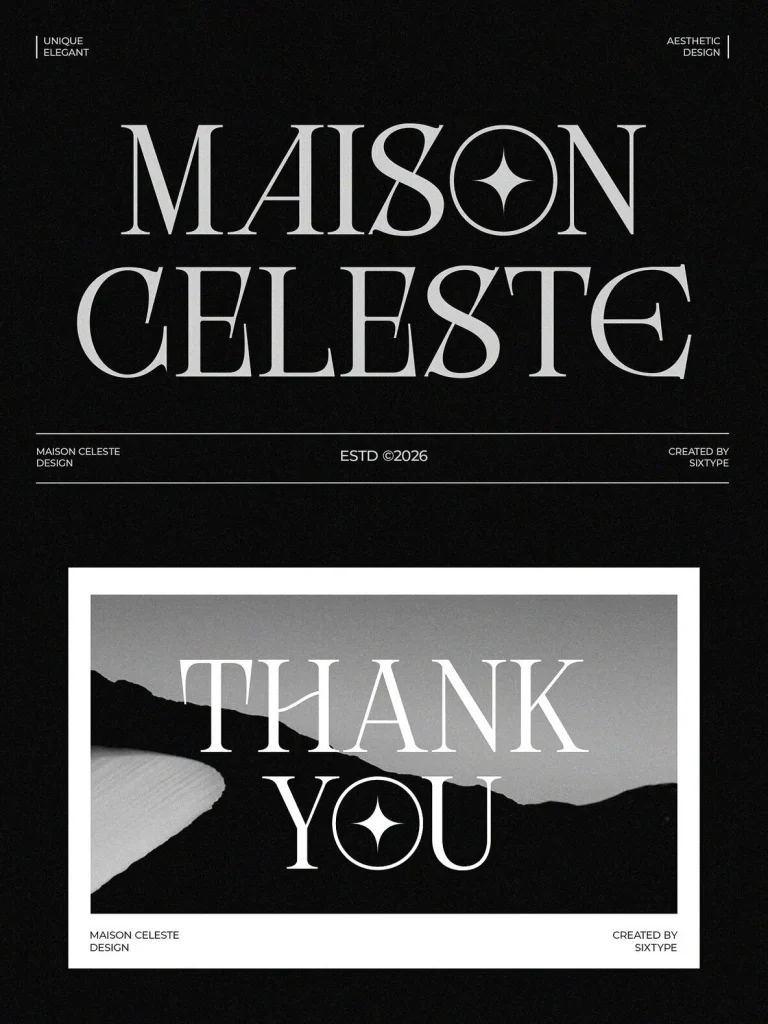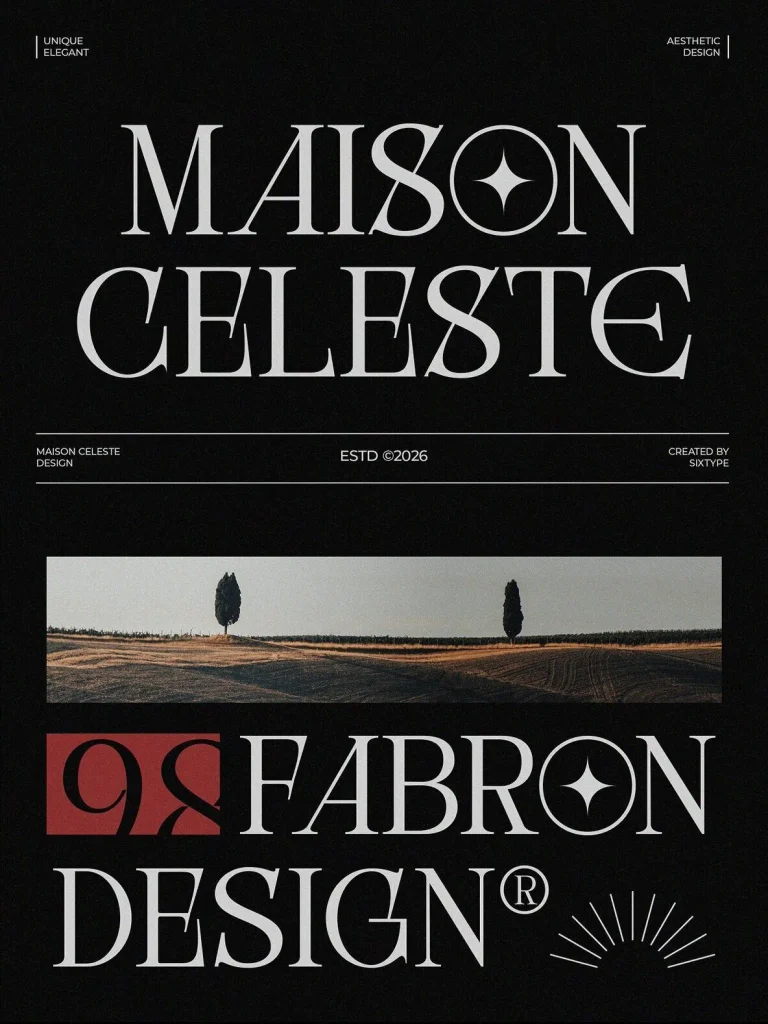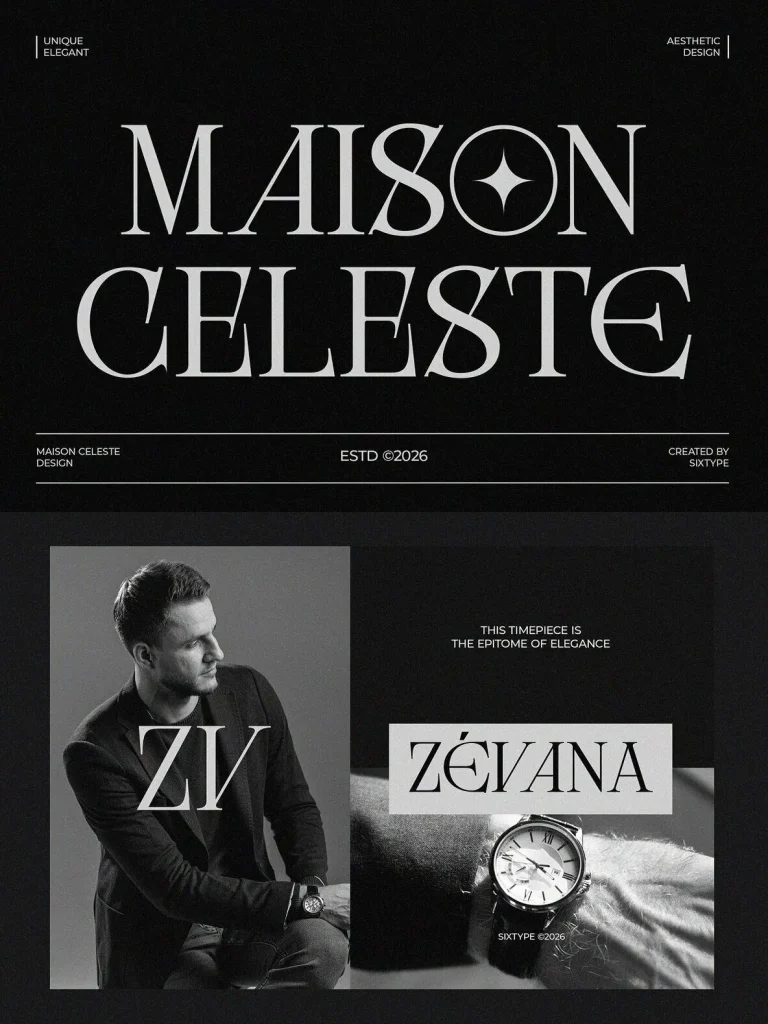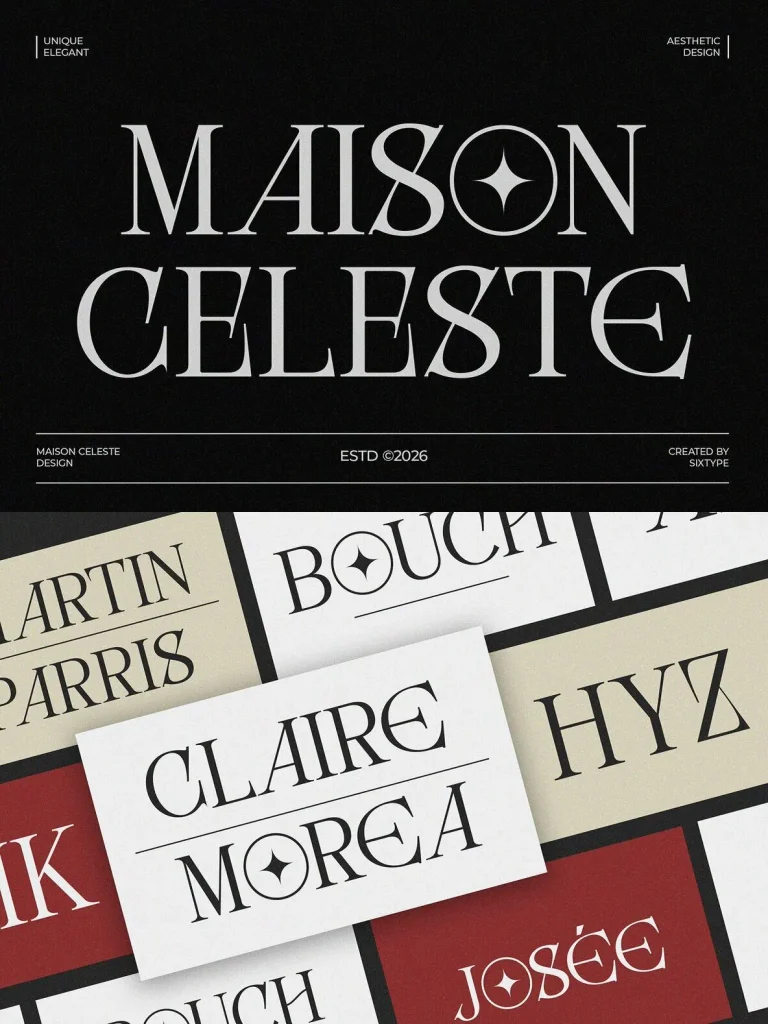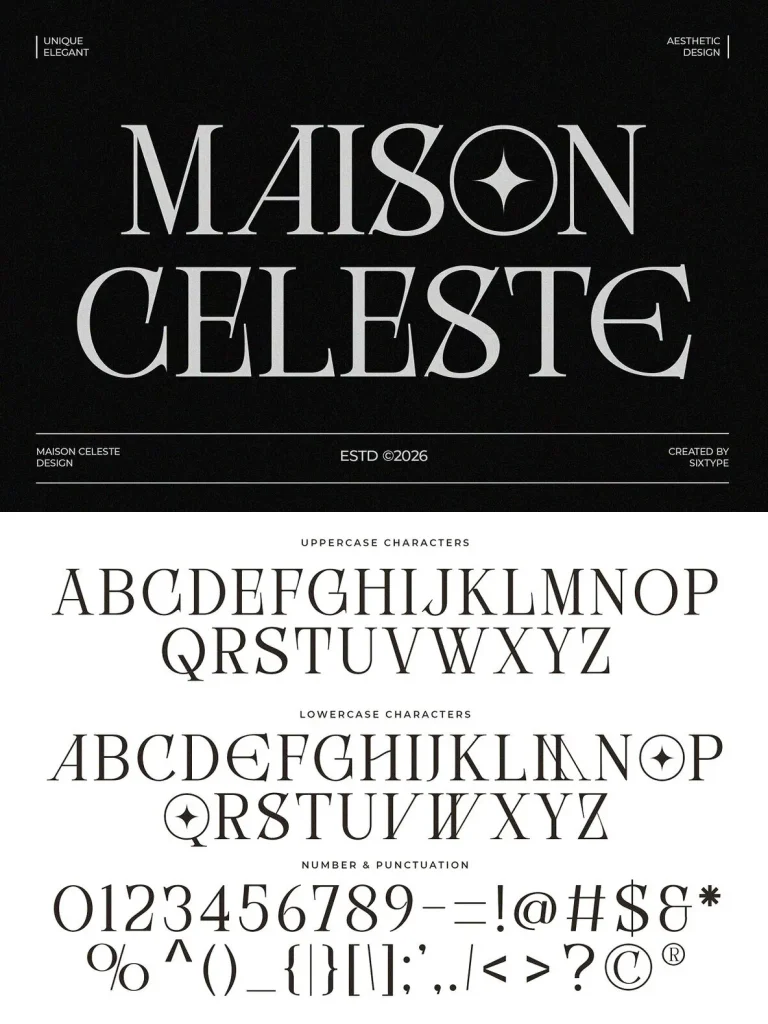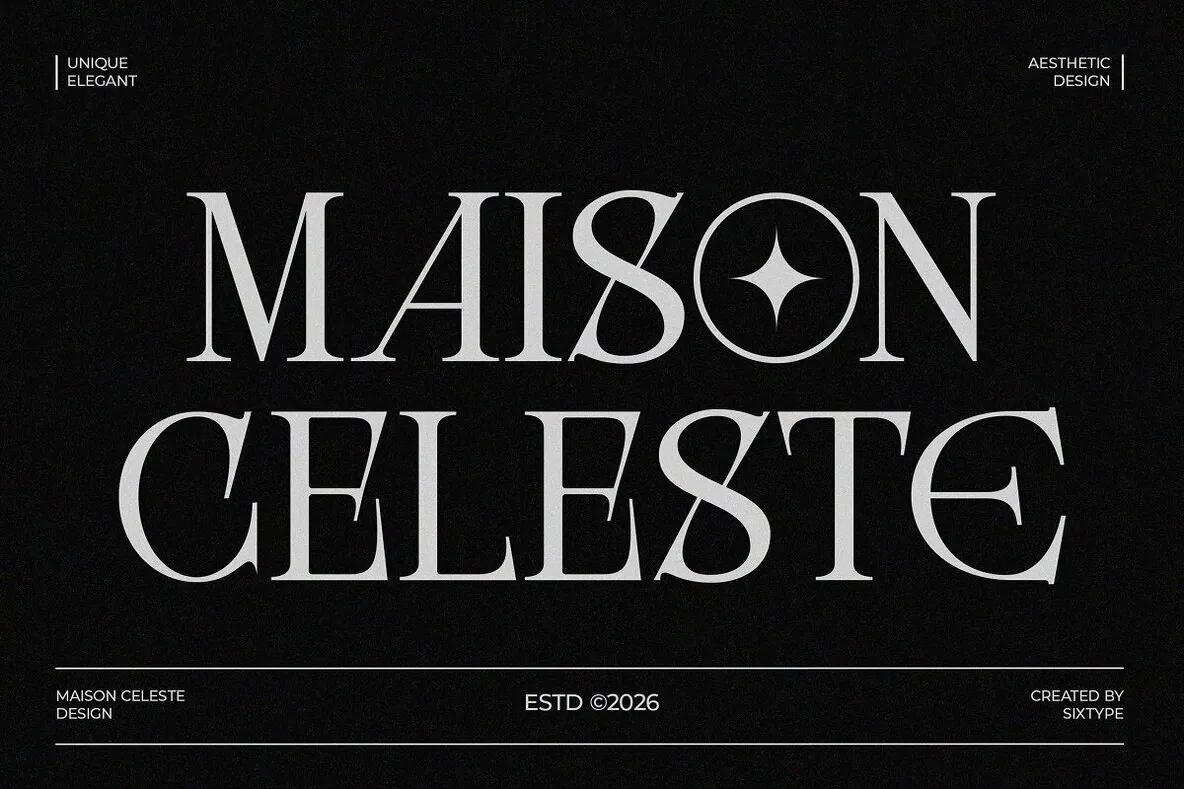
Maison Celeste — Editorial Luxury in Serif
Maison Celeste is a refined modern serif typeface with a clear sense of luxury, elegance, and high-end editorial design. Its high-contrast strokes, sharp serifs, and graceful curves connect classic typographic tradition with contemporary sophistication, giving the font a poised and confident presence on the page.
Distinctive details, including sculpted terminals and stylized letterforms, give Maison Celeste a unique personality without losing its timeless quality. It is an excellent choice for premium branding, fashion magazines, jewelry campaigns, and upscale packaging. Artistic yet authoritative, Maison Celeste suits designers who want to create a bold, elegant statement across polished visual projects.